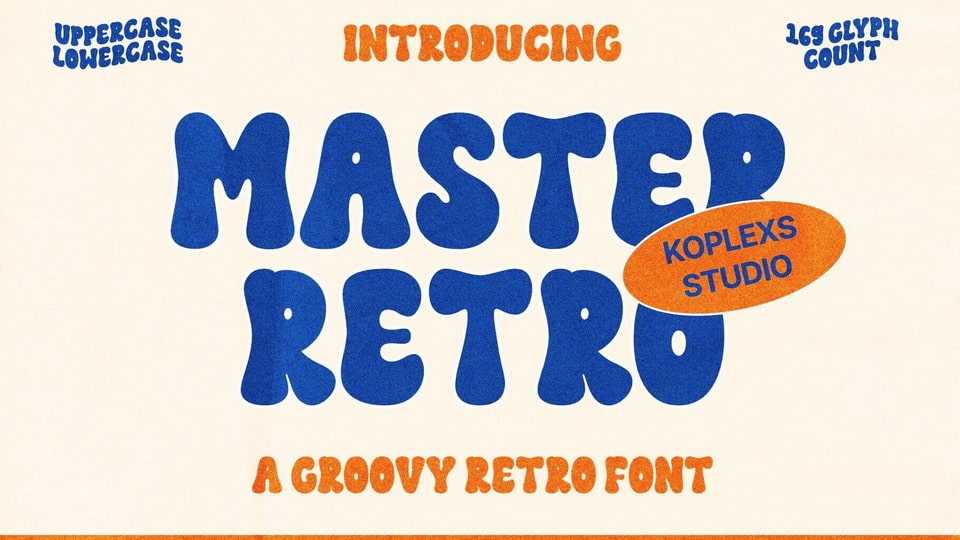
Master Retro Font › Fontesk
Download Master Retro font, a bold groovy retro typeface inspired by playful bubble fonts and vintage typography from the 70s and 80s. Its chunky and wavy letterforms bring a nostalgic yet modern look.
Designer: Koplexs Studio